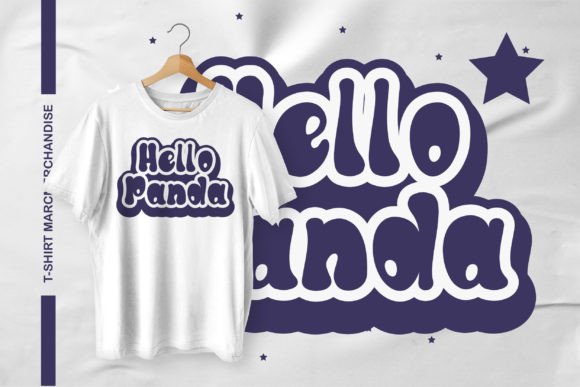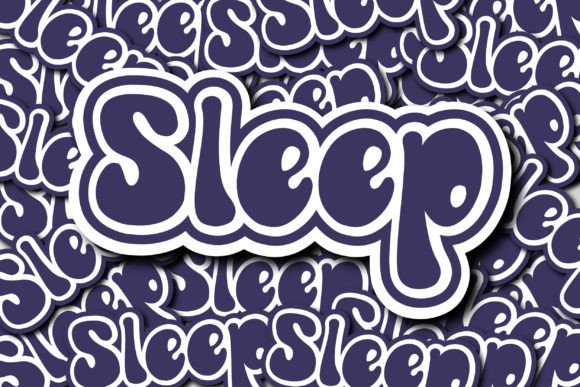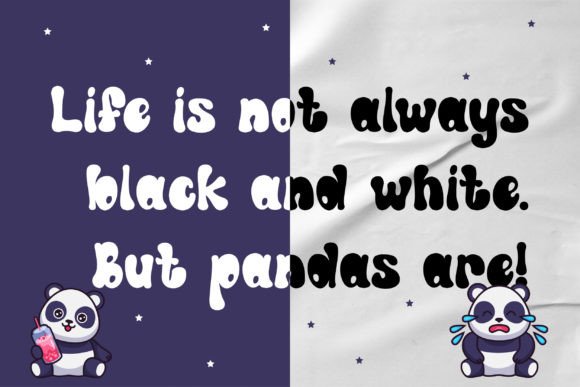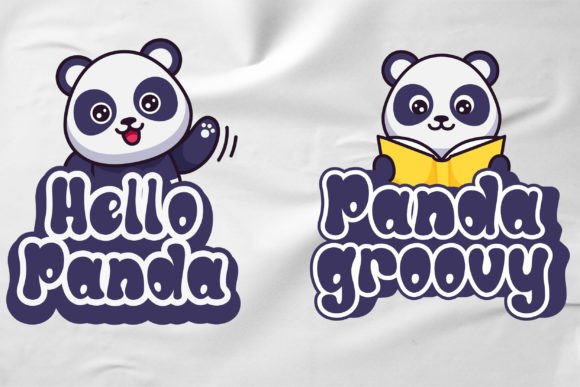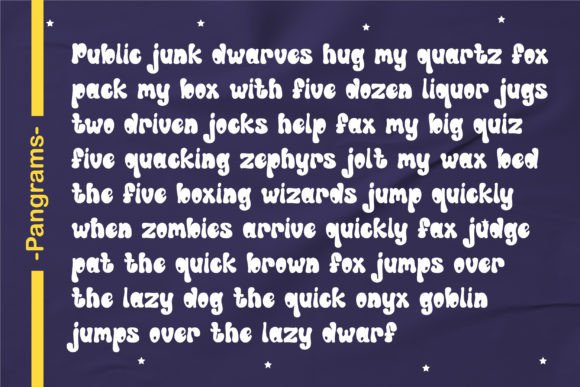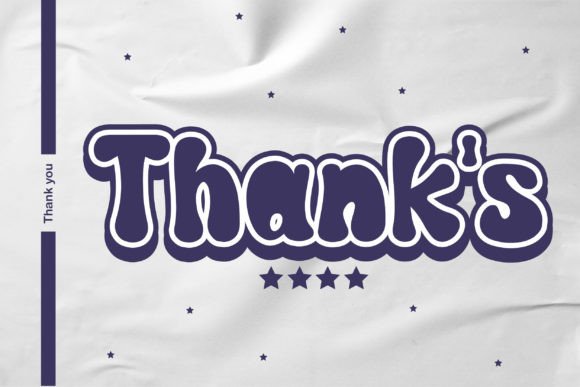
Introduction to Panda Groovy Font
Panda Groovy is a cute, fun, and graphic font that is perfect for designing T-shirts, tote bags, hats, stickers, logos, cards, quotes, and more.
Panda Groovy will make any creative idea stand out and be amazing .
Key Features of Panda Groovy Font
Why Choose Panda Groovy Font?
Panda Groovy Font offers exceptional quality and versatility, making it a valuable addition to your design toolkit. Whether you’re creating for personal projects or commercial use, Panda Groovy Font delivers professional results.